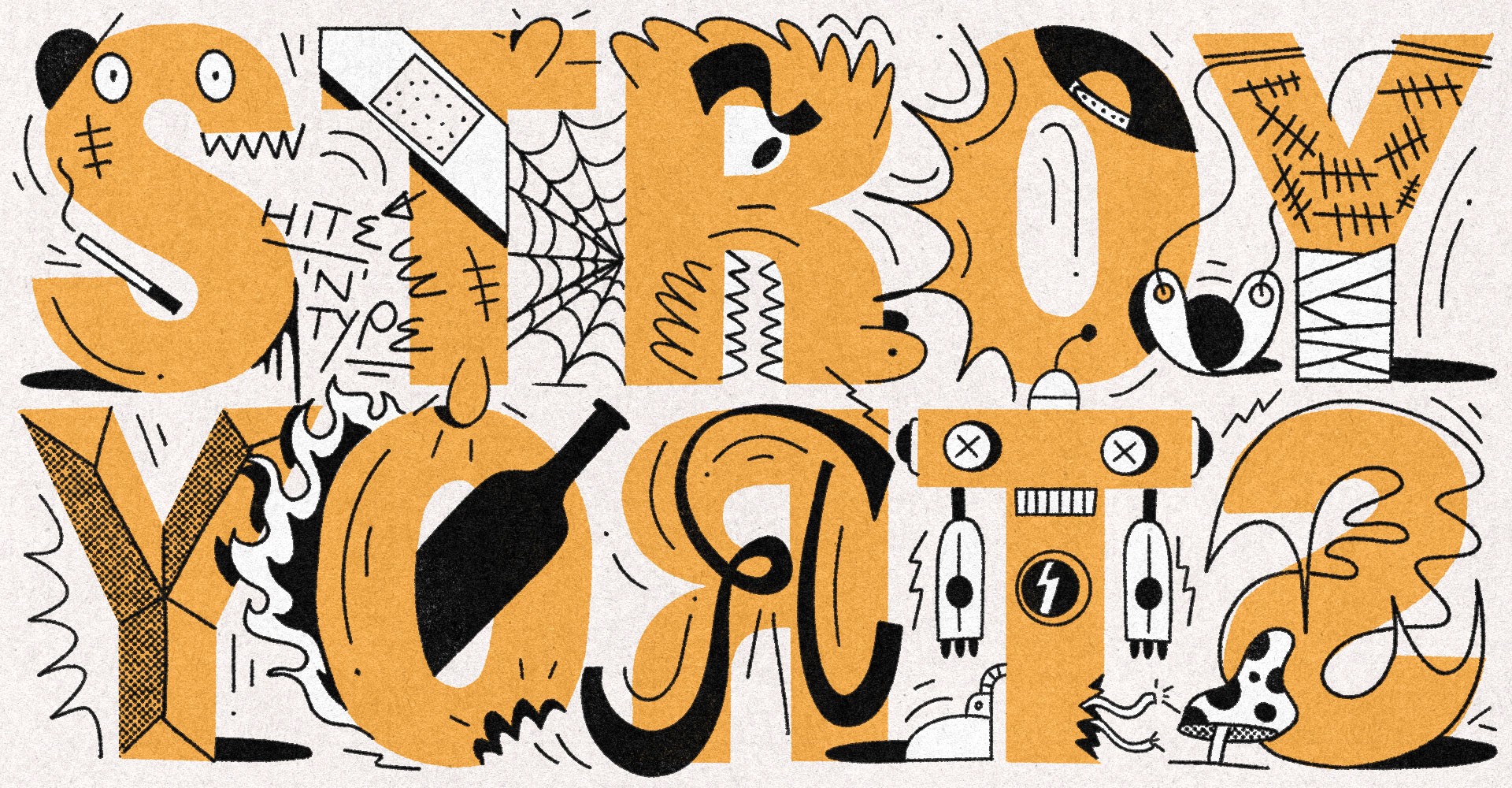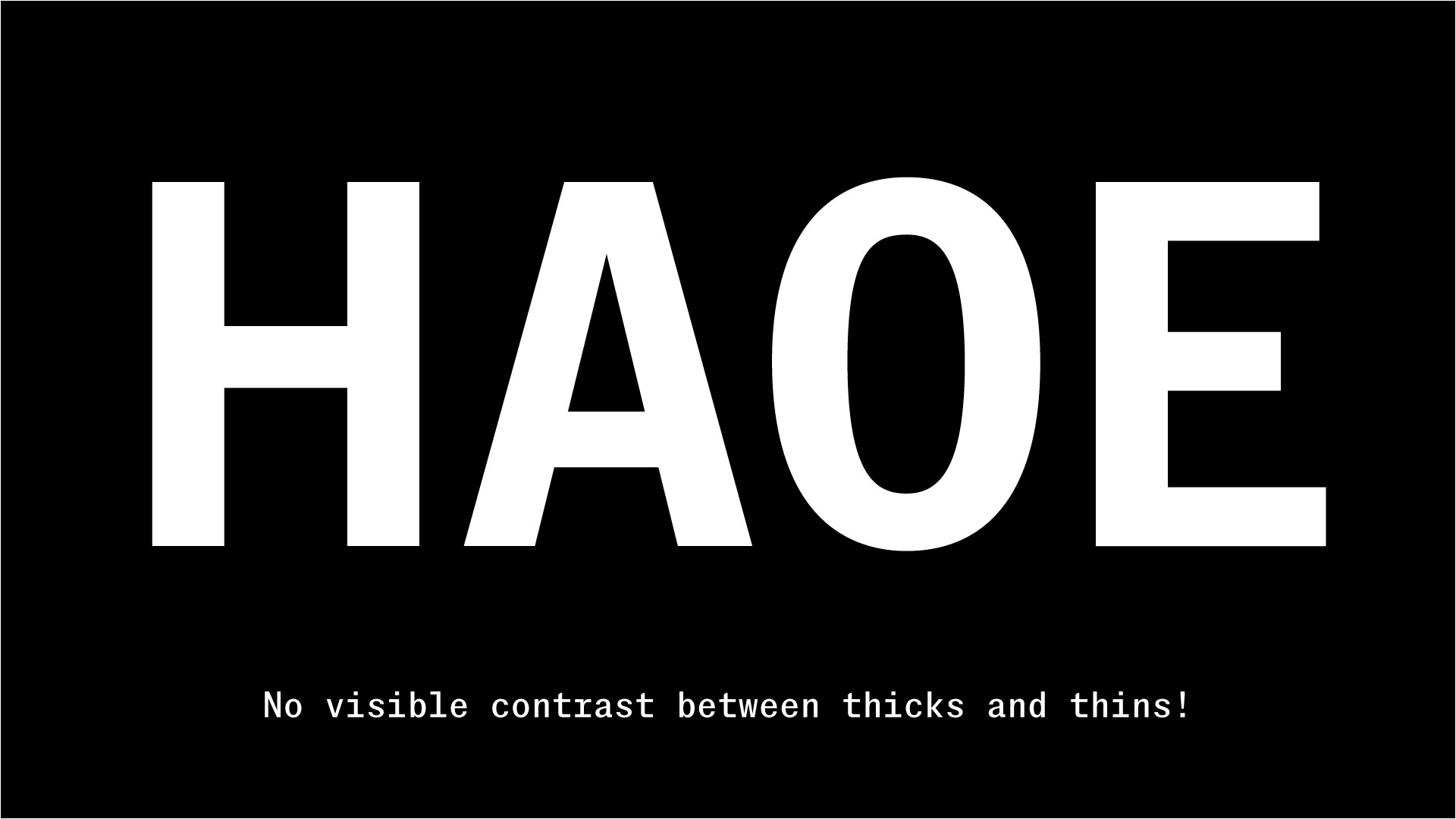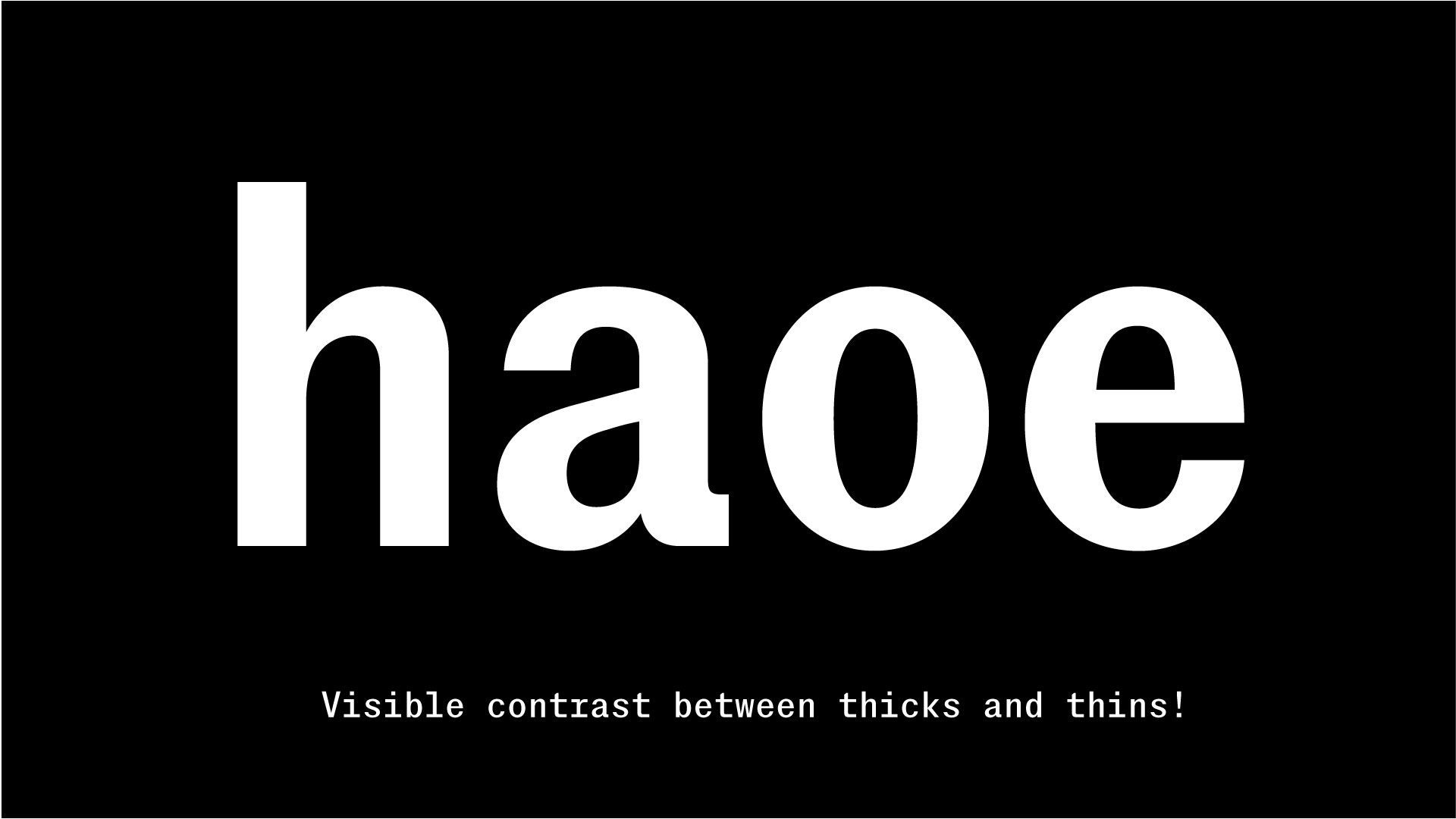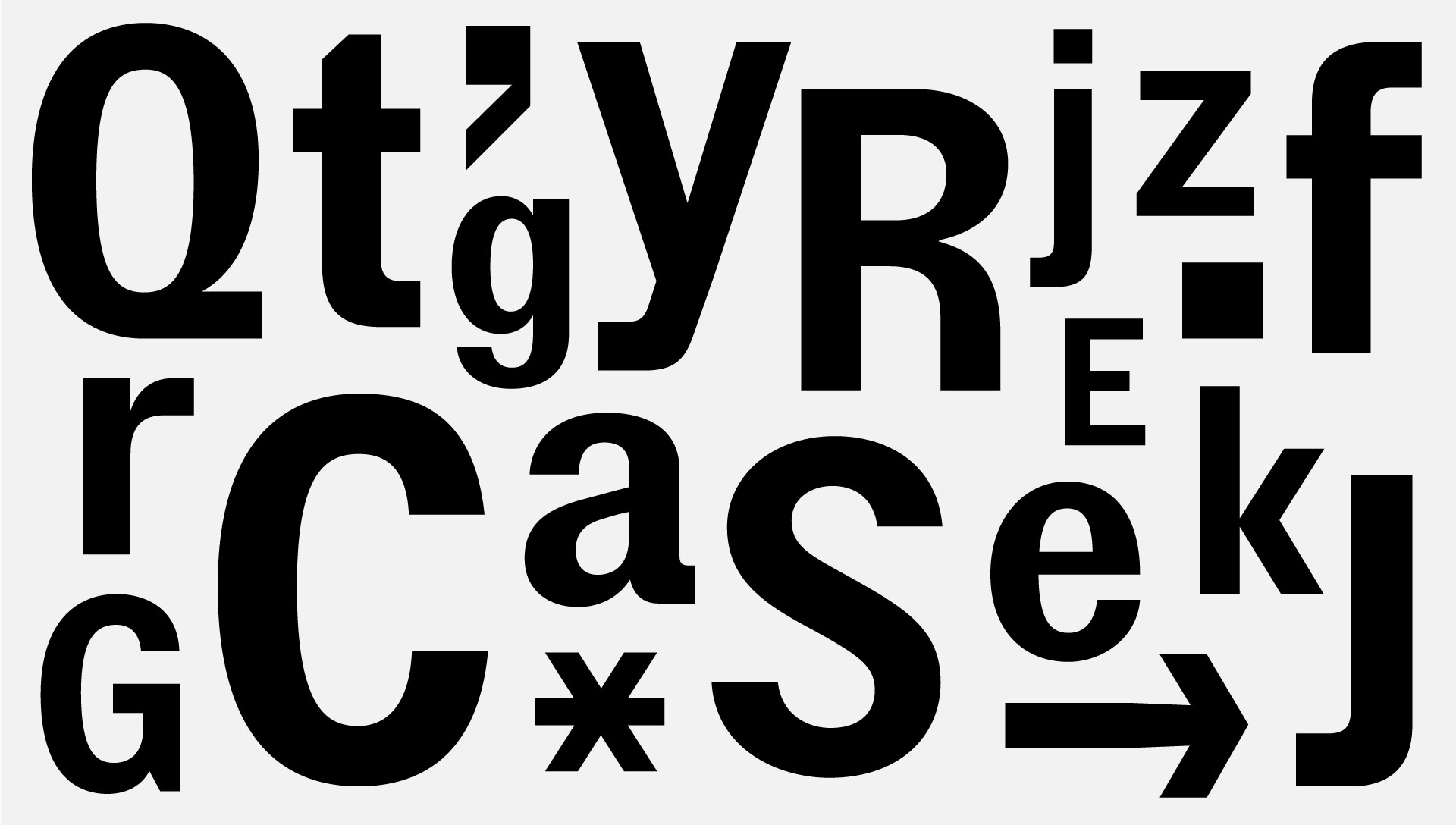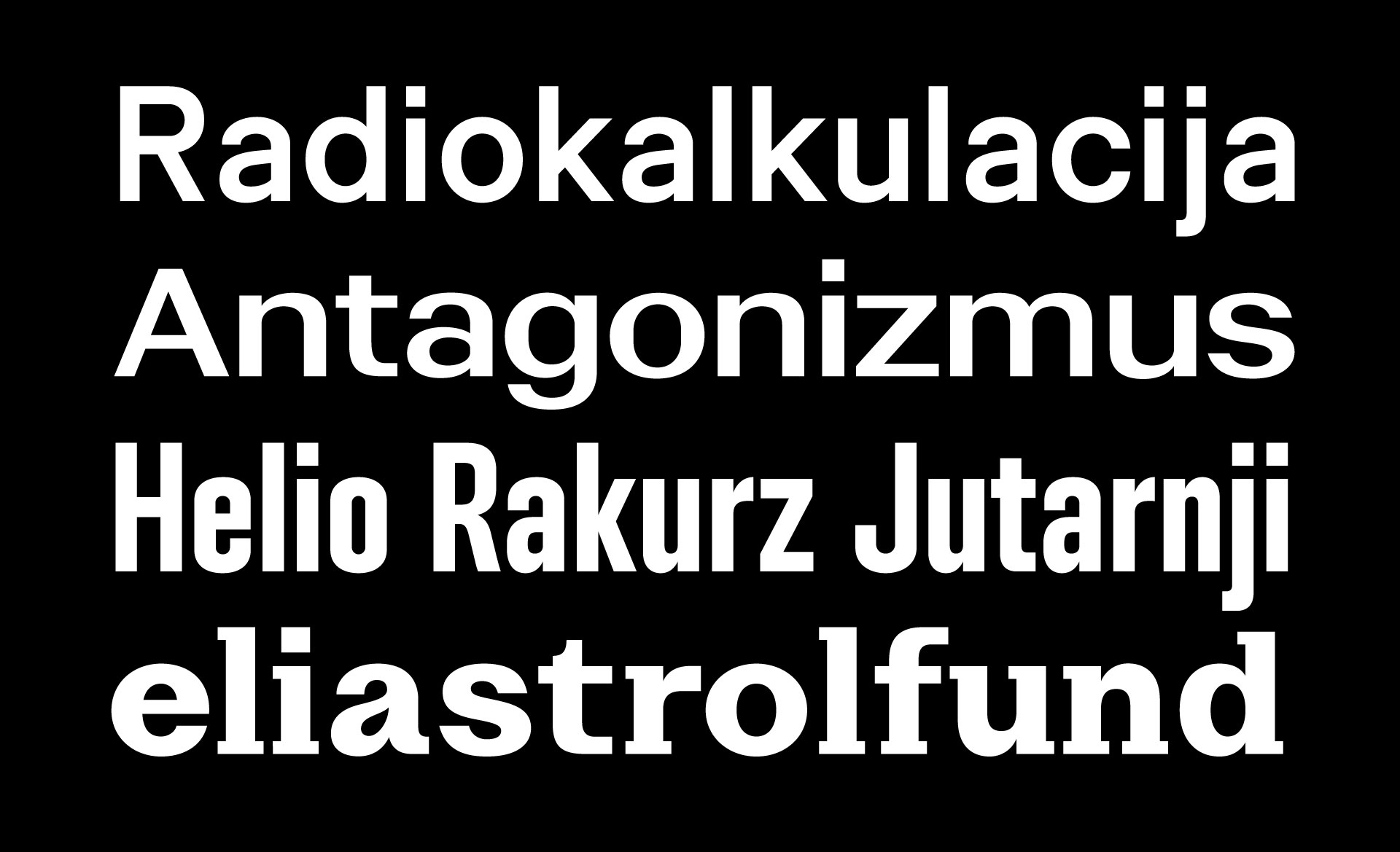
Contemporary interpretation of nostalgia, a grotesque Sans Serif type family, best described through the interplay of contrasting terms—raw and warm. Its overall unrefined feeling is juxtaposed with soft, almost calligraphic upstrokes that connect stems. Stroy Grotesk is a great performer, no matter the size—the bigger it gets, the more of its character will pop out.
Stroy Grotesk heavily relies on flat horizontal and vertical stroke terminations.
The family consists of 6 weights which span from basic monoline Thin styles all the way to Black styles, and they utilize thick-to-thin contrast to open it up where necessary. The corresponding italics are slanted (although very much fine-tuned) versions of Roman styles, with a sharp 13-degree slant angle. Beside the proportional Stroy Grotesk family, there is also a Stroy Mono family—for even more raw goodness and typographic variety.